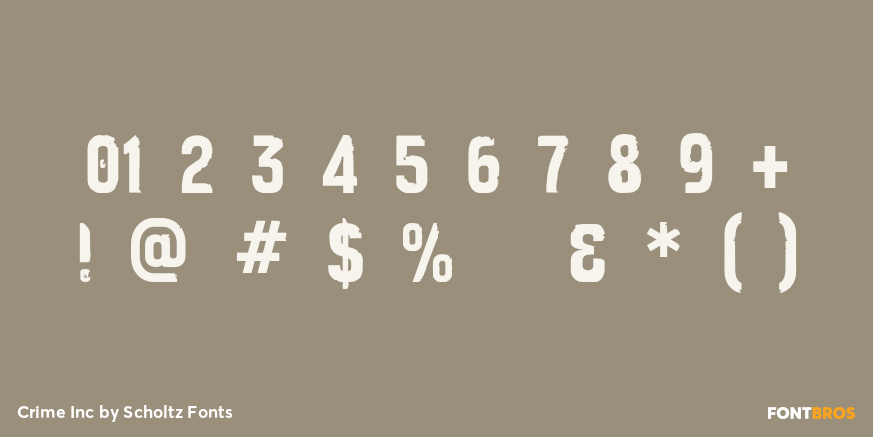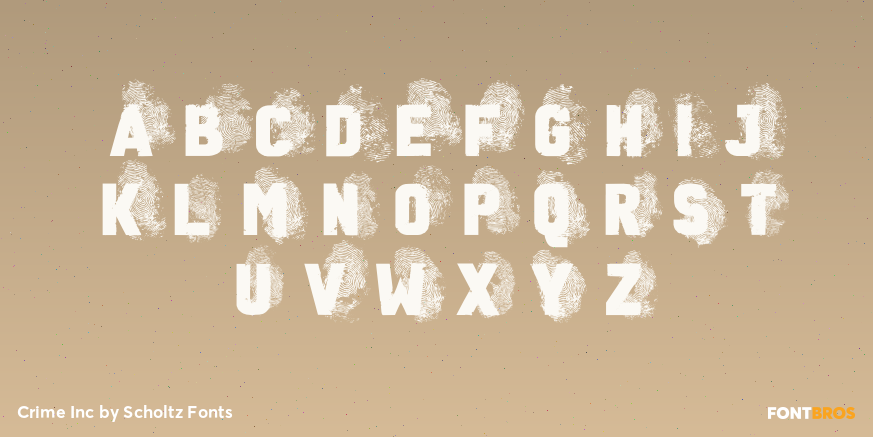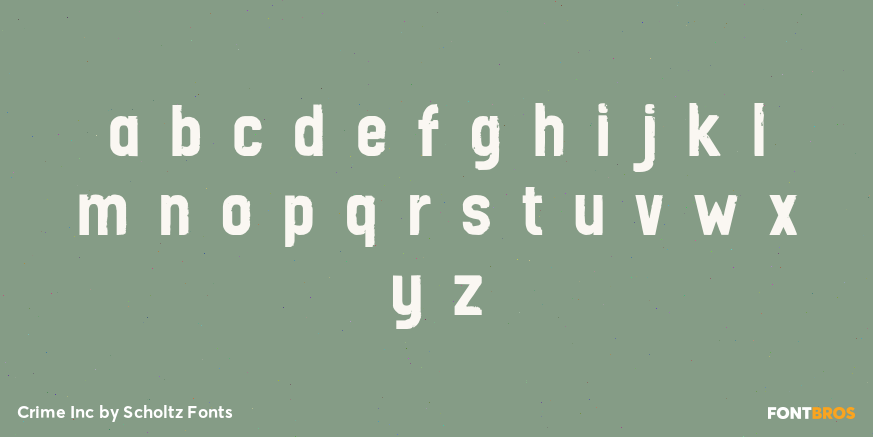
Crime Inc
Font Family by Scholtz Fonts
Crime Inc. is a grungy, sans serif font, that features smudged fingerprints in the design of its uppercase characters. The font has a full set of alternative uppercase characters, for simpler text.
Use Crime Inc. for crime novel covers, movie posters, TV series graphics, ?murder party? invitations, etc.